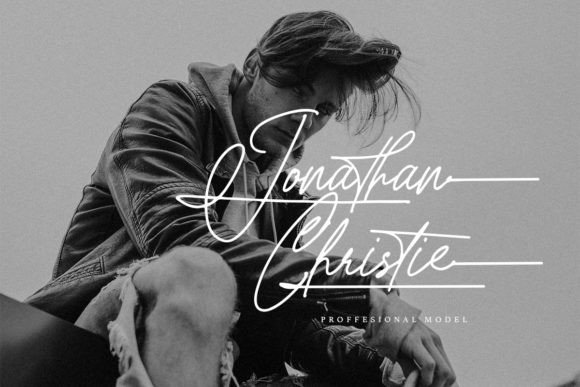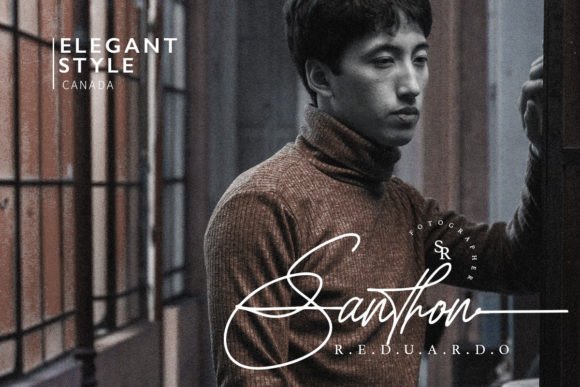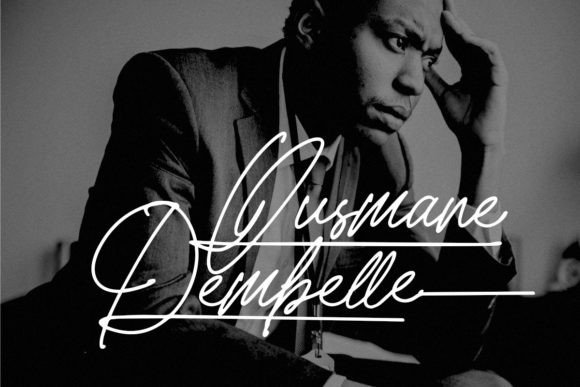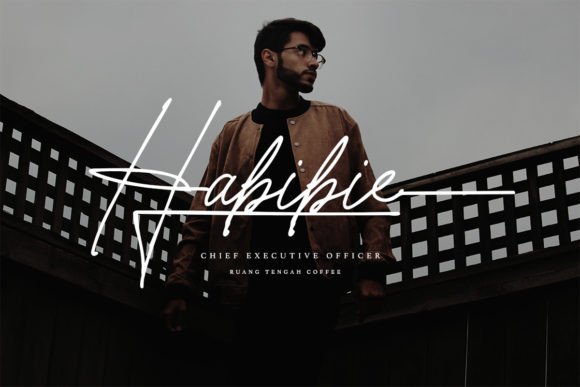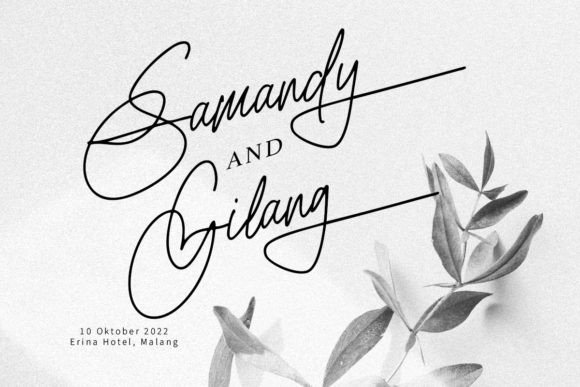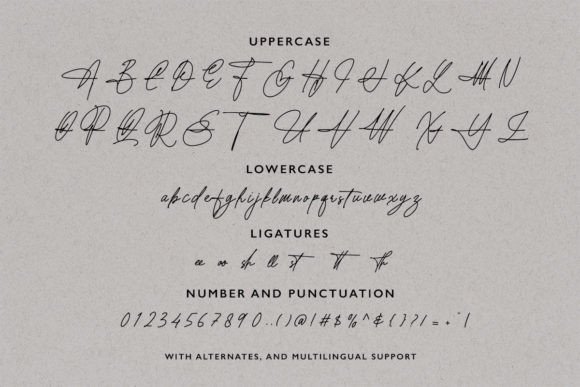
Introducing Authorman Font: Elevate Your Designs with Elegance and Sophistication
In the world of typography, fonts play a crucial role in conveying the tone and personality of a design. For designers and crafters seeking to add a touch of refined beauty to their projects, Authorman Font is an exquisite choice. This stunning script font boasts flowing curves and intricate details, exuding elegance and sophistication. With its modern twist, Authorman Font is perfect for a wide range of applications, from wedding invitations to branding materials.
The Beauty of Authorman Font
Authorman Font is a masterclass in typographic design. Its flowing curves and intricate details create a sense of movement and fluidity, making it perfect for designs that require a touch of elegance. The font’s modern twist adds a level of sophistication, setting it apart from more traditional script fonts. Whether you’re designing wedding invitations, branding materials, or digital content, Authorman Font is sure to make a lasting impression.
Key Features of Authorman Font
- Exquisite Script Design: Authorman Font features a beautiful script design with flowing curves and intricate details.
- Modern Twist: The font’s modern twist adds a touch of sophistication, making it perfect for contemporary designs.
- Elegant and Refined: Authorman Font exudes elegance and refinement, making it perfect for designs that require a touch of class.
- Versatile: The font is suitable for a wide range of applications, from wedding invitations to branding materials.
Uses of Authorman Font
Authorman Font is a versatile font that can be used in a variety of design applications. Here are some ideas to get you started:
- Wedding Invitations: Add a touch of elegance to your wedding invitations with Authorman Font.
- Branding Materials: Use Authorman Font to create sophisticated branding materials, such as logos, business cards, and letterheads.
- Digital Content: Authorman Font is perfect for digital content, such as blog posts, social media graphics, and email newsletters.
- Stationery: Create beautiful stationery, such as notebooks, journals, and greeting cards, with Authorman Font.
Tips for Using Authorman Font
To get the most out of Authorman Font, here are some tips to keep in mind:
- Use it Sparingly: Authorman Font is a statement font, so use it sparingly to avoid overwhelming your design.
- Pair it with a Simple Font: Pair Authorman Font with a simple font to create visual contrast and make your design more readable.
- Experiment with Colors: Authorman Font looks beautiful in a variety of colors, so experiment with different colors to find the one that works best for your design.
In conclusion, Authorman Font is a stunning script font that exudes elegance and sophistication. With its flowing curves and intricate details, it’s perfect for designs that require a touch of refined beauty. Whether you’re a designer or crafter, Authorman Font is a great choice for a wide range of applications. So why not give it a try and elevate your designs with the beauty and elegance of Authorman Font?
With its versatility, elegance, and sophistication, Authorman Font is sure to become a favorite in your font collection. So go ahead, get creative, and make your designs shine with Authorman Font!